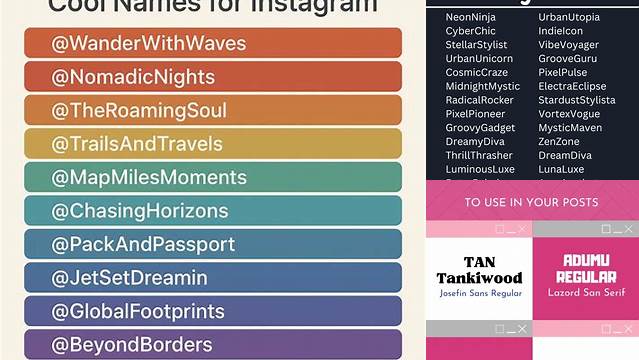
Cool Instagram Names: Using Fonts To Stand Out
Hey everyone! Let's talk about leveling up your Instagram game, specifically by crafting a killer Instagram name! You know, that little piece of real estate at the top of your profile that's basically your brand's first impression. And guess what? We're not just talking about the same old boring fonts. We're diving into the world of cool, unique fonts that will make your name pop and grab people's attention. Using different fonts for your Instagram name can be a game-changer. It's like giving your profile a fresh, stylish makeover. It helps you stand out from the crowd and instantly makes your profile more visually appealing. Using the right fonts can make your name memorable and reflect your personal brand or the vibe you're going for. Are you ready to transform your Instagram presence and make your profile shine? Let's dive in!
1. The Power of Fonts: Why They Matter on Instagram
Okay, guys, let's be real: your Instagram name is everything. It's what people see first, it's what they remember, and it's what helps them decide whether or not to check out your profile. So, why let it be a boring, default font? Using cool fonts gives you instant personality. It's like choosing the perfect outfit; it shows you care about your image and pay attention to detail. Unique fonts are also super effective for branding. They help create a visual identity that sets you apart. Think about the big brands you love – they all have fonts that are instantly recognizable. Using a unique font for your name is a subtle yet powerful way to build your brand. It makes your profile instantly more attractive, which is what you need to succeed on Instagram. The impact of fonts is often underestimated, but they can be the determining factor of whether someone chooses to follow you or not. Ultimately, you are creating an identity and setting yourself apart from the competition. Let’s explore the possibilities and discuss how to find the perfect font that showcases your style. Remember, your Instagram name is more than just text; it's a statement.
1.1. How Fonts Affect First Impressions
First impressions are crucial, right? And on Instagram, your font is a major player in that first impression game. Think about it: when someone stumbles upon your profile, the font of your name is one of the first things they'll see. A unique, well-chosen font immediately tells them you're creative, stylish, or maybe a little bit edgy – whatever fits your brand! A default font? Well, it's like wearing a plain white t-shirt to a party. It doesn't say much. But a cool font, it's like a statement piece that shows you've got style and personality. Using a font that matches your content creates a cohesive aesthetic, making your profile more appealing and professional. A well-designed font can instantly communicate the essence of your brand and give you a competitive edge. The font you use reflects your brand personality. It's a subtle but impactful way to communicate who you are and what you're about. Make a strong first impression; it will have people wanting more and will influence their decision to follow you. First impressions matter, so make them count!
1.2. Fonts and Brand Identity: A Match Made in Heaven
Alright, let’s talk branding! Your font choice is a HUGE part of your brand identity. It's like the visual voice of your Instagram profile. The font you choose should reflect your brand's personality, whether it's playful, professional, or something in between. Think about it: if you're a fitness coach, you might use a strong, bold font to convey strength and energy. If you’re a fashion blogger, a sleek, elegant font might be more your style. Using a font that aligns with your brand identity is super important for consistency. When your name's font matches your content and overall aesthetic, it creates a cohesive and professional look. Consistency builds trust and recognition, making it easier for your audience to remember and connect with your brand. Moreover, using a unique font that no one else uses is an incredibly efficient way of ensuring you stand out from the crowd. Your font is a reflection of your brand. It helps to reinforce your message and values. Choose a font that speaks volumes about who you are and what you do.
1.3. Psychology of Fonts: What Different Styles Say
Did you know fonts have a secret language? Yep, they do! Different font styles evoke different emotions and associations. For example, a script font often feels elegant and sophisticated, while a bold, blocky font might convey strength and confidence. A playful font can be seen as fun and approachable. Choosing the right font means understanding what message you want to send. Think about your target audience and what kind of impression you want to make. Do you want to appear trustworthy? Modern? Creative? Your font choice can help you achieve that. Learning the psychology of fonts is an art, but it's worth it. It allows you to be more intentional with your brand's visual identity. You have to analyze your audience, your brand's mission, and personality. Then, apply that into the font you choose. Think about it as one of the main keys to brand success. A font can make or break your brand!
2. Finding the Right Fonts for Your Instagram Name
Finding the perfect font for your Instagram name can feel like a treasure hunt, but don't worry, it's totally doable! The key is to explore and experiment until you find something that resonates with your style and brand. There are tons of cool font generators out there, which we'll get into, but first, let's talk about the basics: where to look and what to consider. Researching fonts is the first step, and with practice, you will learn what works best for you. Let’s dive in and explore some of the best ways to locate the font that fits your brand perfectly. Let's get started! Ready to start your search?
2.1. Instagram Font Generators: Your Secret Weapon
Instagram font generators are your best friends when it comes to spicing up your name. These tools let you type in your desired name and then transform it into a variety of unique fonts that you can then copy and paste into your Instagram profile. There are plenty of generators out there, both free and paid. Some popular options include LingoJam, Fonts for Instagram, and CoolSymbol. Just type in your name and scroll through the different options until you find one you love. Keep in mind that not all fonts work perfectly on Instagram. Some might be glitchy or not display correctly on all devices. Always double-check how your name looks on your profile after you've updated it to make sure everything looks perfect. Font generators are super convenient and the fastest way to test out different fonts and see what fits your style. They provide a playground of possibilities, allowing you to try out various styles and make your Instagram name stand out. Font generators are your secret weapon in the quest for a cool Instagram name.
2.2. Evaluating Font Styles: Serif, Sans-Serif, Script, and More
When you are picking out a font, it's a good idea to know the basic font categories. Serif fonts have little